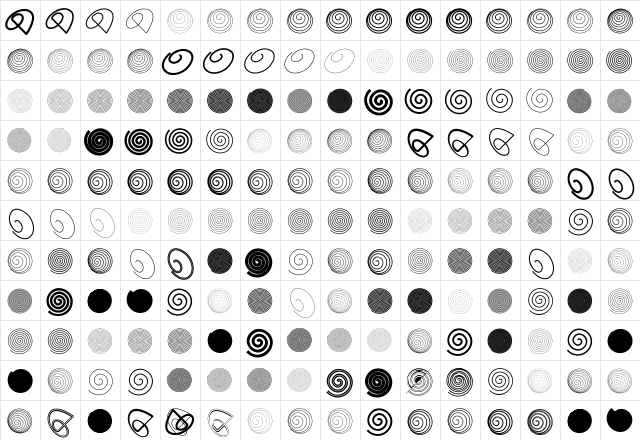
Spiralicus Regular
Design Context for Spiralicus Typeface
Spiralicus is a composed and adaptable typeface that performs quietly and consistently across a wide range of design contexts.